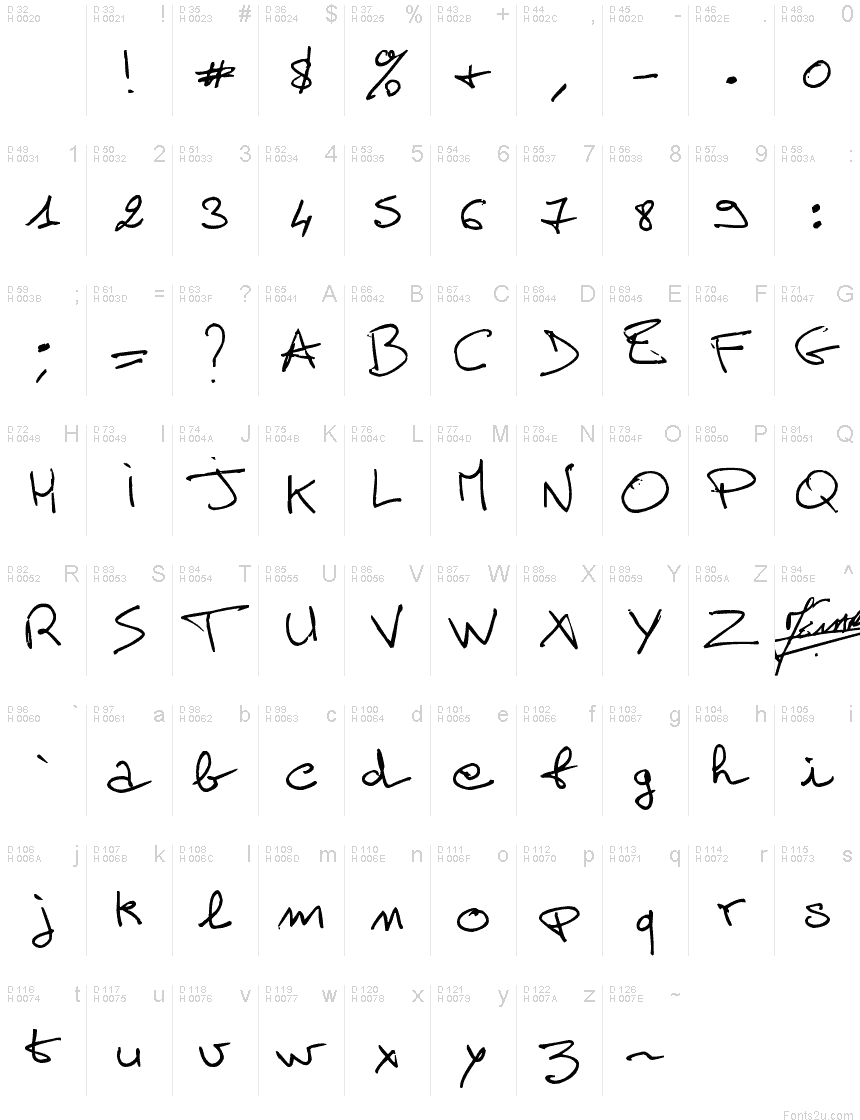
Alain Perso is a free handwritten font with the rush of marker lettering. Its tall, uneven letters switch between blunt strokes, sharp turns, and loose loops, with crossbars and joins that often shoot past the main shapes.
Independent music, fashion, and youth culture are a natural audience for its raw, unpredictable line, making it useful for gig posters, album artwork, and streetwear graphics. In magazine features, it can turn a heading into part of the page's illustration.
Alain Perso